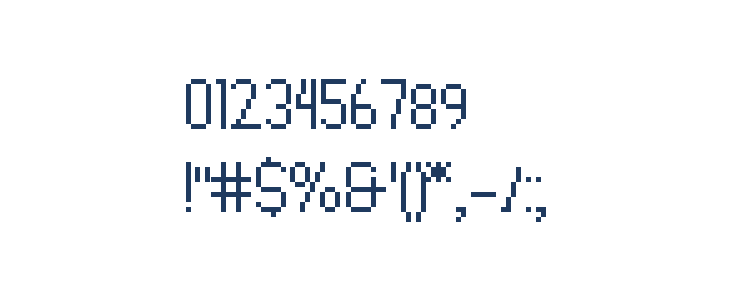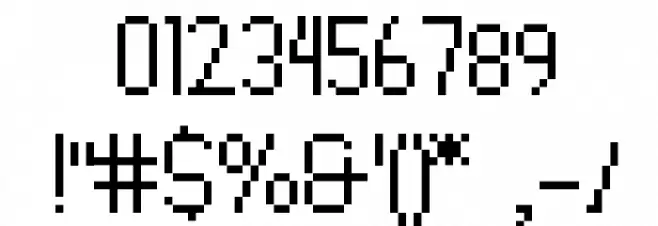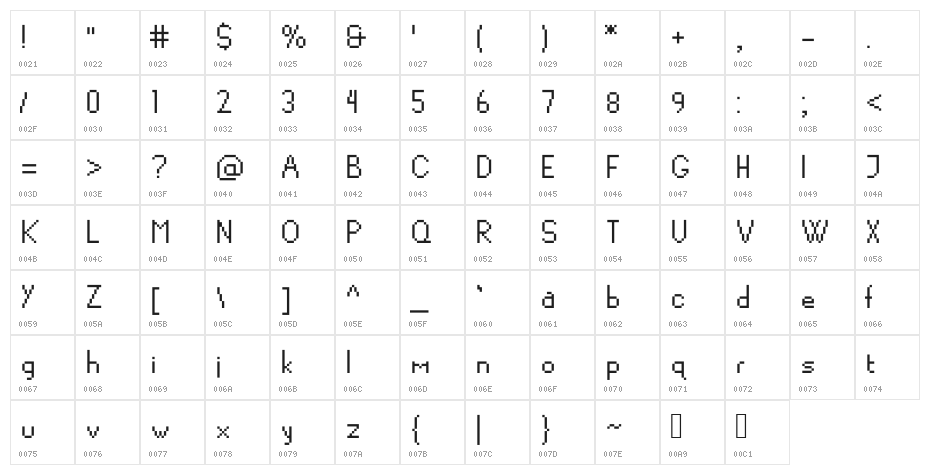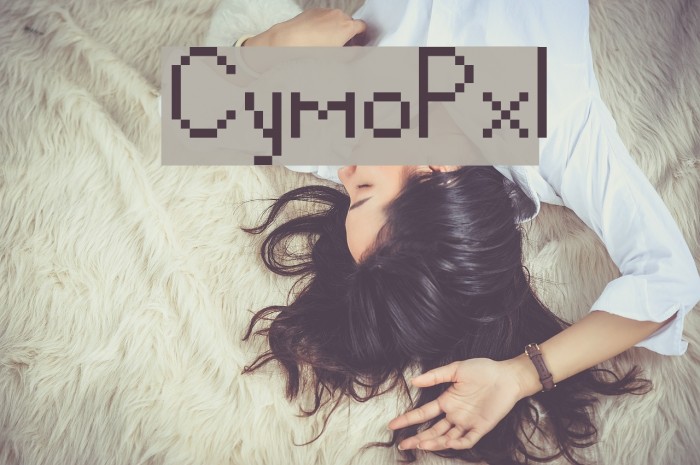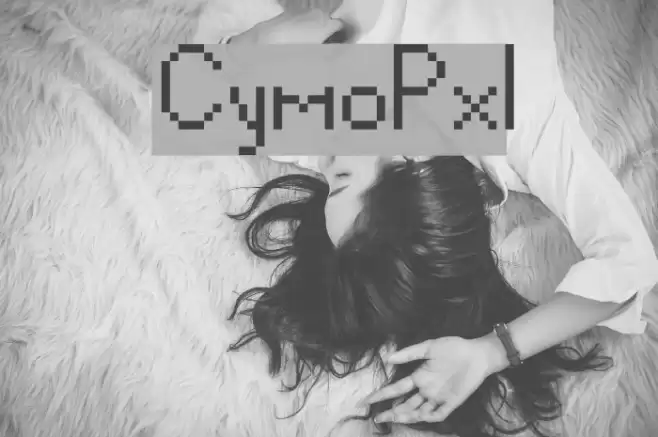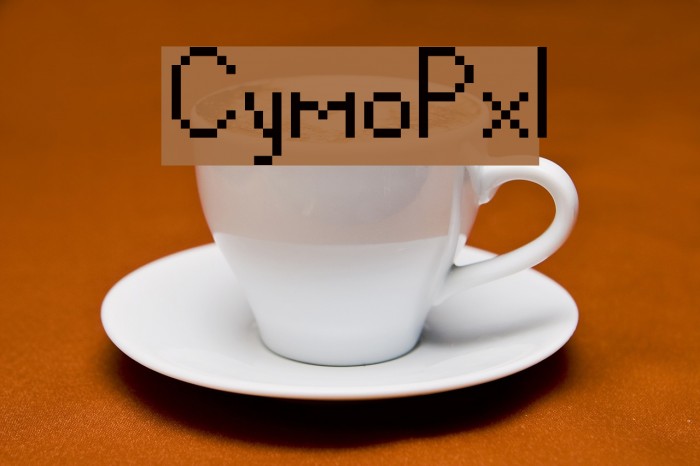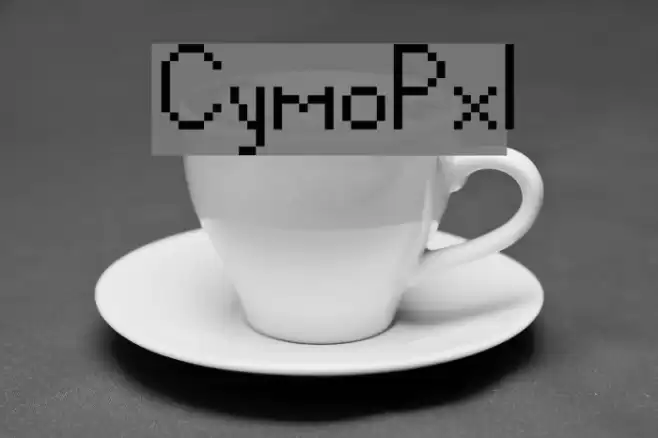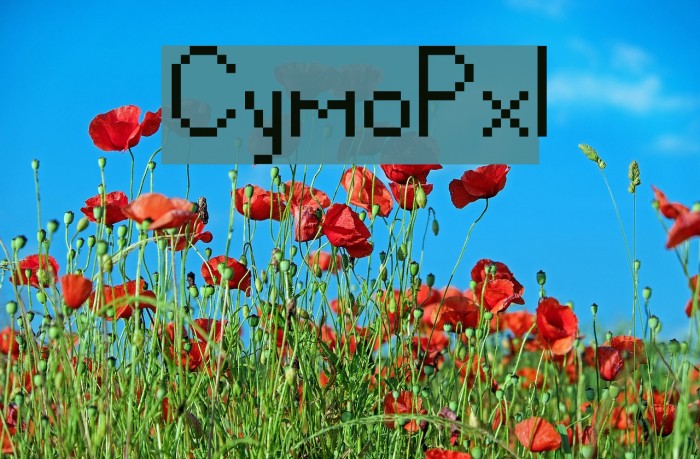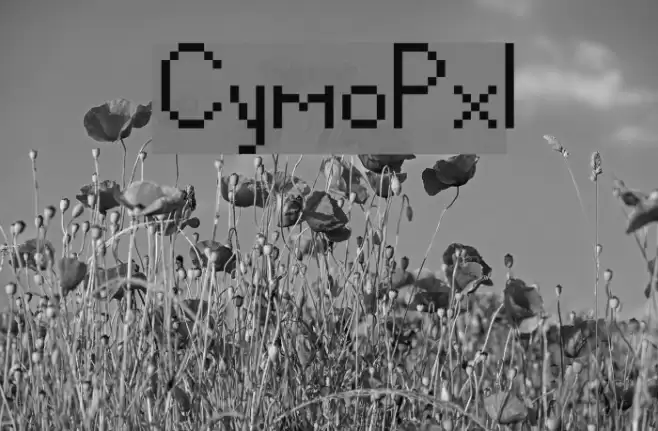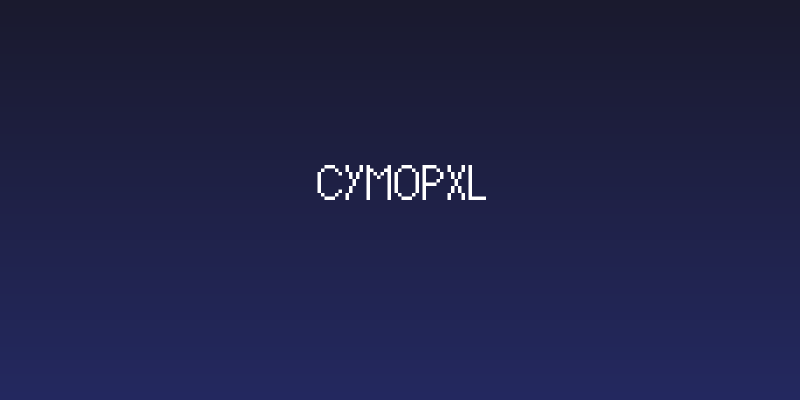
CymoPxl Font
CymoPxl Description
This font features a pixelated, blocky design reminiscent of early digital displays and video games. Each character is constructed with a grid-like precision, giving it a distinctly retro and digital aesthetic. The uppercase and lowercase letters maintain a consistent height and width, contributing to a uniform appearance. Numbers and special characters follow the same pixelated style, ensuring cohesion across all glyphs. The font's simplicity and clarity make it highly legible, even at smaller sizes, while its nostalgic design evokes a sense of vintage computing and arcade games.
| Use Case | Logos, Headlines, Digital Art |
| Proposed Projects | Ideal for retro video games, digital art projects, tech-themed posters, and nostalgic branding. |